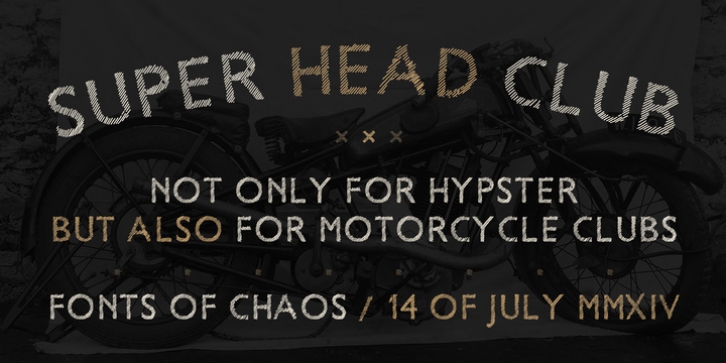
David Alexander Slaager
Fonts of Chaos
Super head Club is a font made with line. The shape of the letters is a sans-serif style round and bold. Works perfectly for vintage artworks.